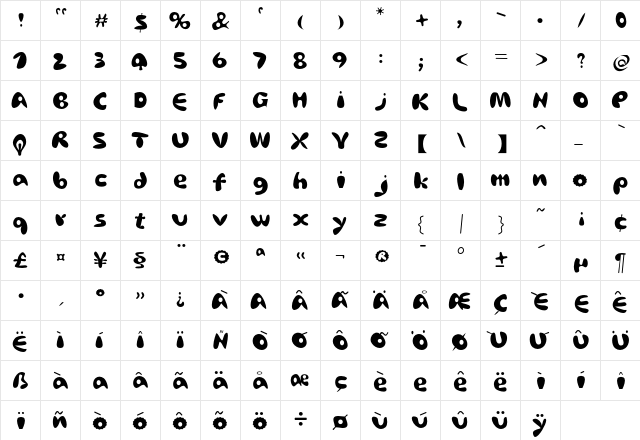
Design Context for AfroditeKATEF Typeface
AfroditeKATEF is a composed and adaptable typeface that performs quietly and consistently across a wide range of design contexts.